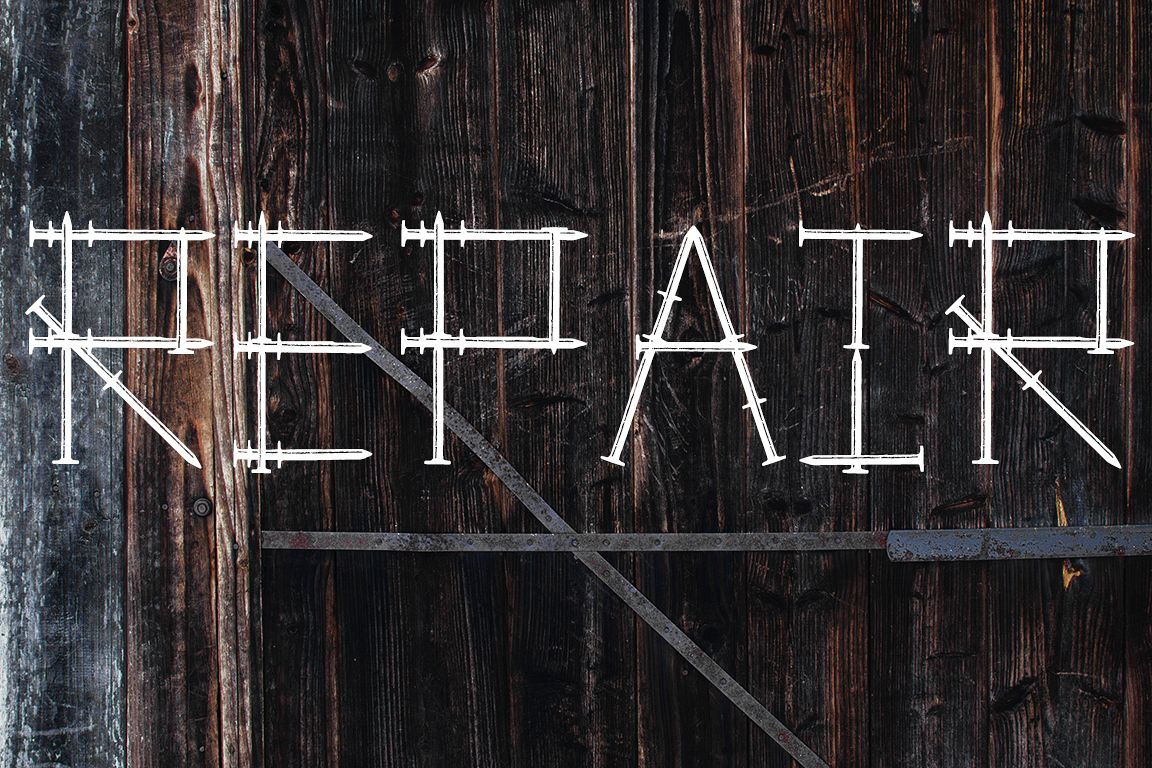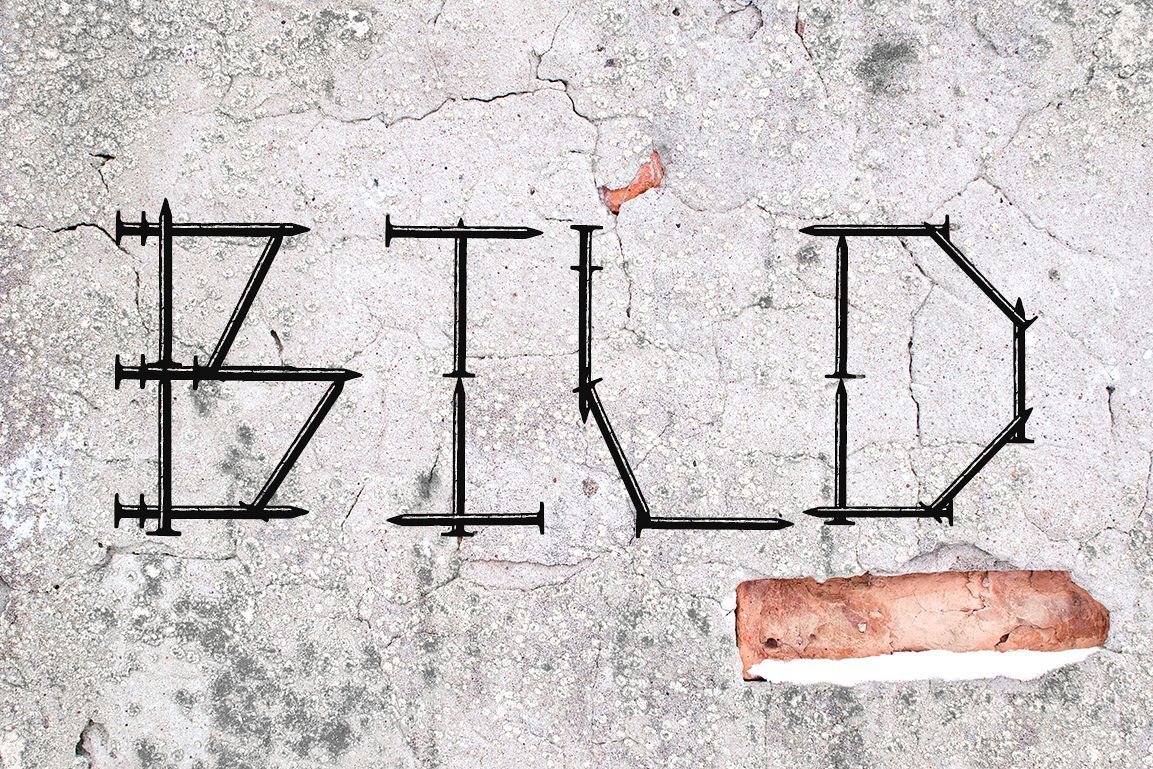
Repair
Get pleasure from the Repair! This font is inspired by the repairs and that's why it's made of nails. If you need a catchy title or accent in the text, "Repair" is what you need!